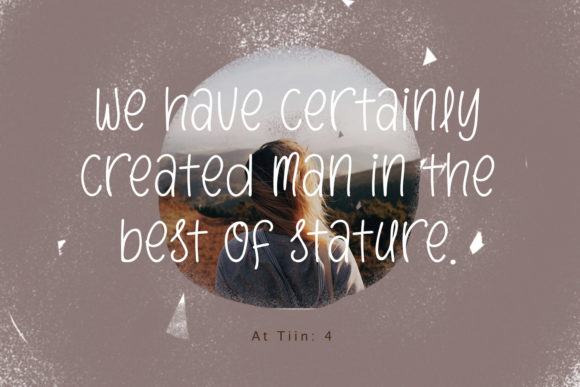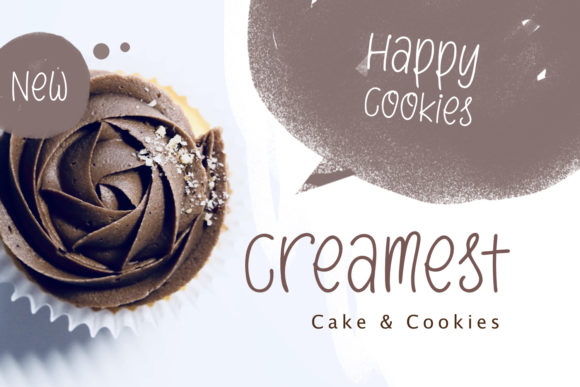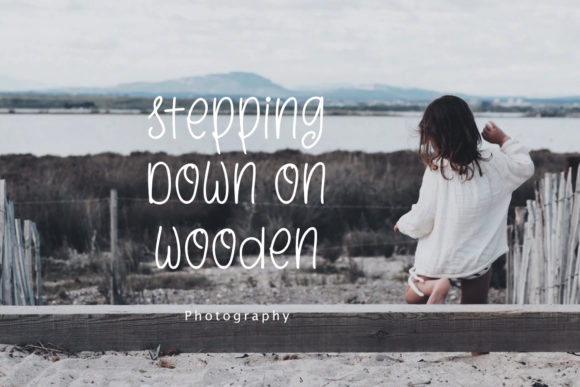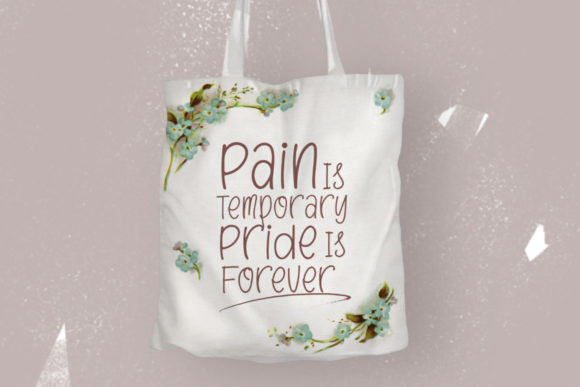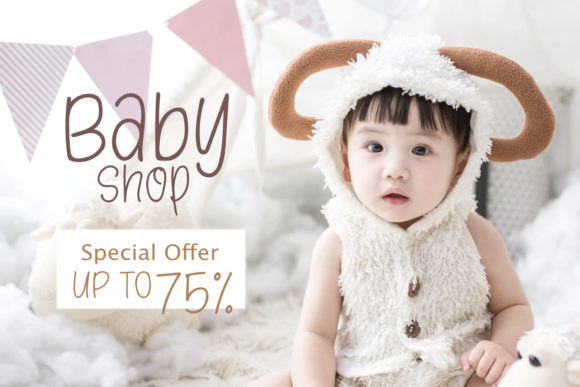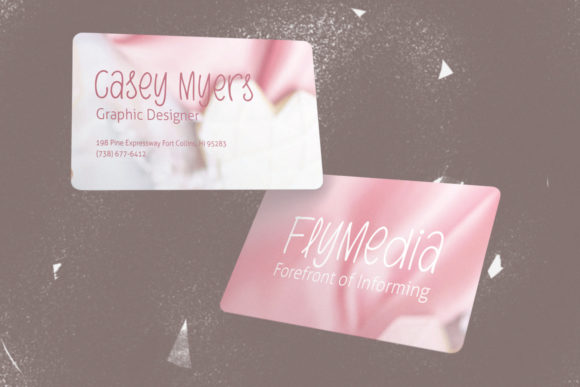
The Perfect Companion for Your Creations: Buddy Smile Font
Have you ever stared at a blank page, wondering where to start your next creative project? The blank slate can be intimidating, but sometimes all it takes is the right spark to get those creative juices flowing. For many designers, finding the perfect font can be that spark – a key element that sets the tone and atmosphere of a project.
Enter the Buddy Smile Font, a charming and inviting handwritten font that’s sure to bring a smile to your face. With its relaxed and friendly vibe, this font is the perfect companion for any project, whether it’s a social media post, a blog article, or a marketing campaign. By incorporating the Buddy Smile Font into your designs, you’ll not only elevate your creations but also add a touch of warmth and personality that resonates with your audience.
Buddy Smile Font Key Features
- Font Family: Buddy Smile is a sans-serif font family designed for friendly and approachable typography.
- Character Set: Includes a wide range of characters, including Latin, Greek, Cyrillic, and punctuation, making it suitable for multilingual projects.
- Size and Resolution: Designed for optimal legibility at medium to large font sizes (14pt-48pt) and high resolutions (300 DPI or higher).
- Unique Characteristics: Features a rounded, friendly appearance with subtle rounded edges and a slightly condensed width for improved readability.
- Style Variations: Available in multiple styles, including Light, Regular, Medium, Bold, and Extra Bold, allowing for flexibility in design and layout.
Buddy Smile Font Review
Overall, I think Buddy Smile Font is a great choice for playful and friendly designs. ✨ The font’s rounded edges and gentle curves give it a soft and approachable feel, making it perfect for applications where you want to convey a sense of warmth and personality.
- ✨ Friendly and approachable feel
- ✨ Wide range of character styles and weights
- ✨ Supports various languages
One of the things I like most about Buddy Smile Font is its versatility. It’s suitable for a wide range of applications, from children’s educational materials to advertising and promotional materials.
- ⚠️ Limited support for complex scripts and languages
- ⚠️ May not be suitable for formal or professional designs
Overall, I think Buddy Smile Font is a great choice for designers who want to add a playful touch to their designs. While it may have some limitations, its friendly and approachable feel makes it a great addition to any design toolkit.
Tips for Getting the Most Out of the Buddy Smile Font
Here are a few tips for getting the most out of the Buddy Smile Font:
- Use the font in combination with bold or italic text to add emphasis.
- Use the font in conjunction with images or graphics to create a cohesive design.
The Buddy Smile Font is well-suited for a variety of design projects, including:
- Branding and logos.
- Advertising and marketing materials.
- Wedding and event invitations.
- Children’s books and educational materials. Alternatives to Buddy Smile Font
Great Vibes Font is a fun, casual, and elegant script font that is perfect for adding a touch of playfulness to your designs. It’s great for headings, titles, and other text elements where you want to convey a sense of friendliness and approachability.
Comparison to Buddy Smile Font: While both fonts have a friendly feel, Great Vibes Font is more elegant and refined, making it suitable for a wider range of designs. Buddy Smile Font is more playful and cartoonish, making it ideal for children’s books, comics, and other projects that require a more whimsical tone.